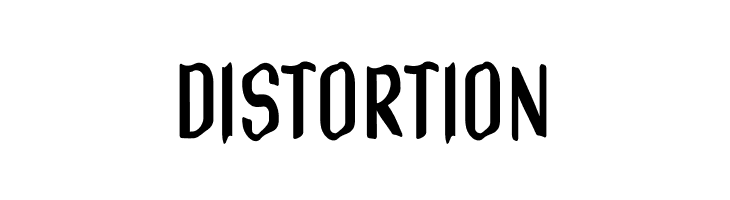
A bold, distorted font with a modern and edgy style.
A rugged, organic font with jagged, irregular characters.
A futuristic, bold font with geometric shapes and sharp angles.
Bold, italic font with sharp angles and dynamic style.
A bold, playful handwritten font with rounded, slanted characters.
Cartoonish, dentistry-themed illustrative font with playful characters.
A collection of bold, graphic elements with iconic imagery and high contrast.
A playful, bold font with rounded, bubbly characters and a whimsical style.
A bold, handwritten-style font with playful curves and a dynamic feel.
A bold serif font with strong, structured letterforms and consistent stroke width.